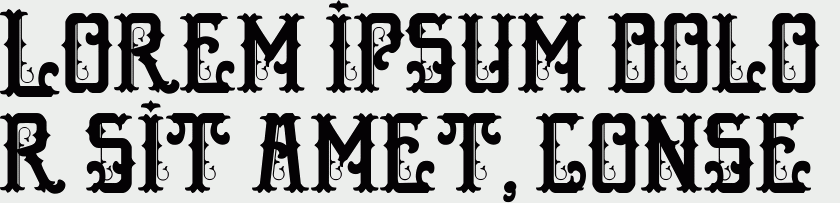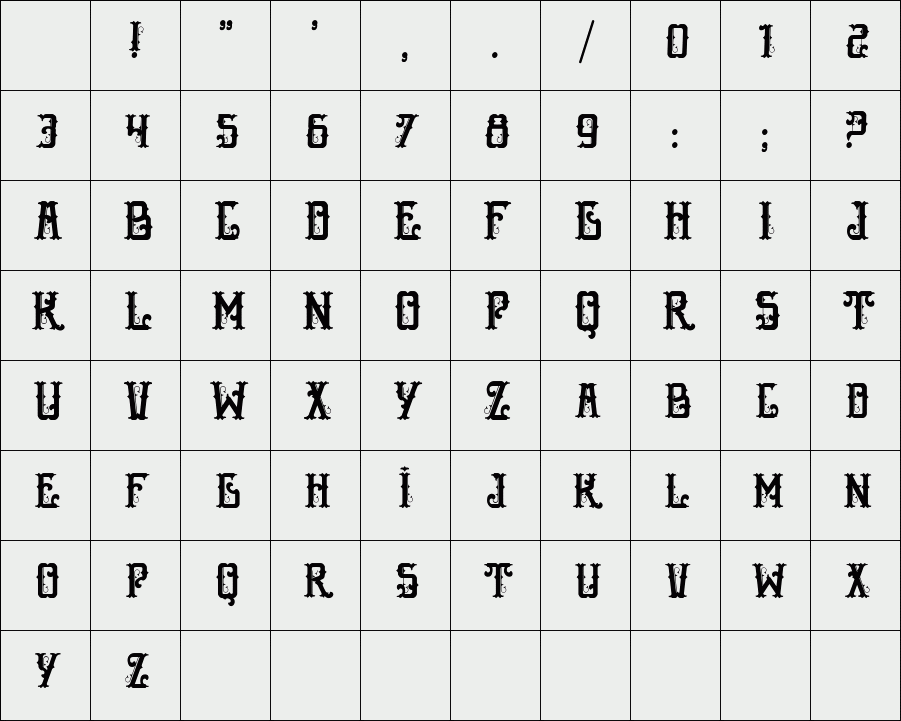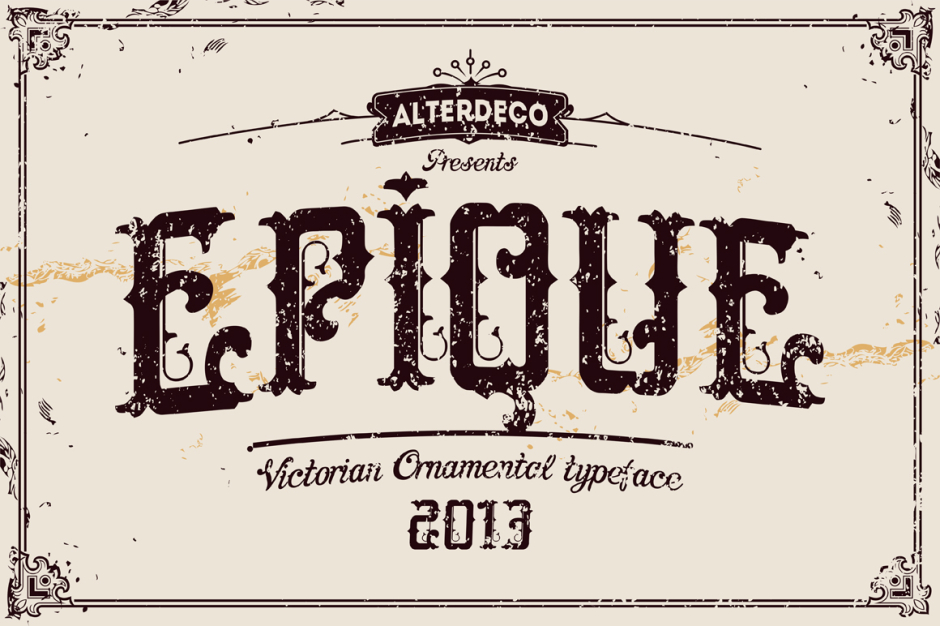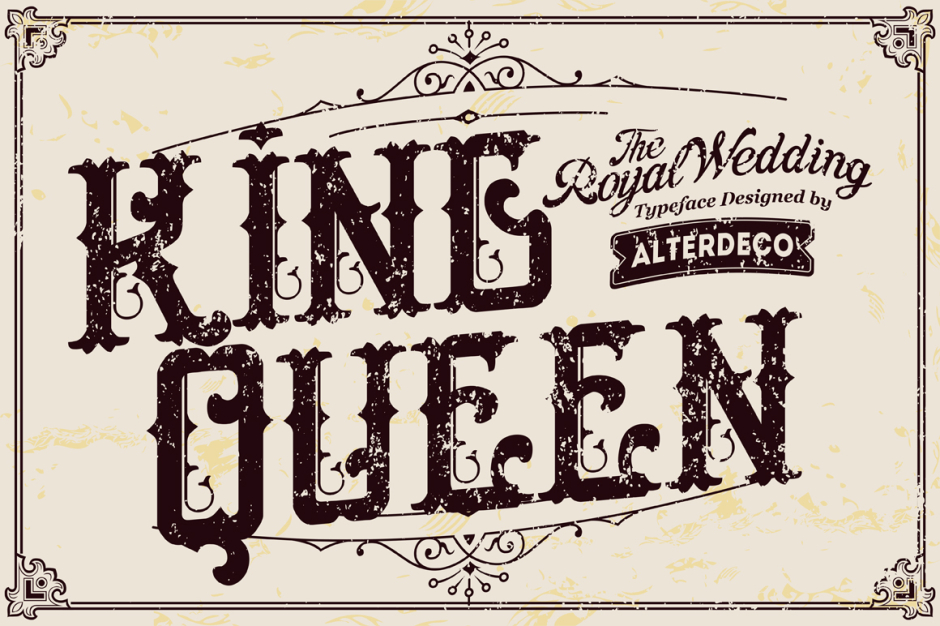
Epique typeface
Epique typeface, it's a victorian and ornamental typeface, it's inspired by old victorian and ornamental typography design, with a modern and clean shape and it's perfect for creating a wedding invitation (initial),a headline, or logotype, or even a t shirt/apparel design.